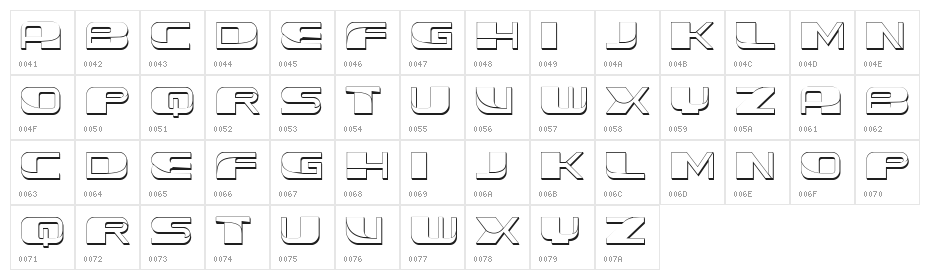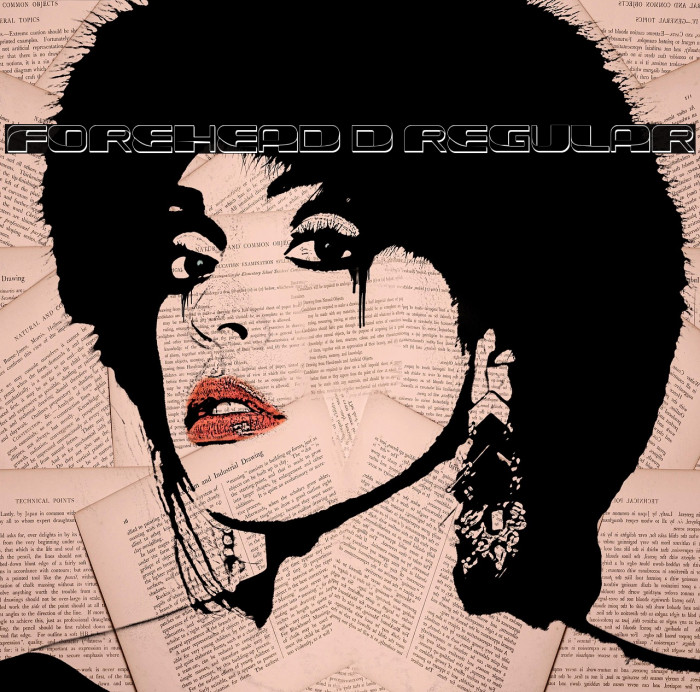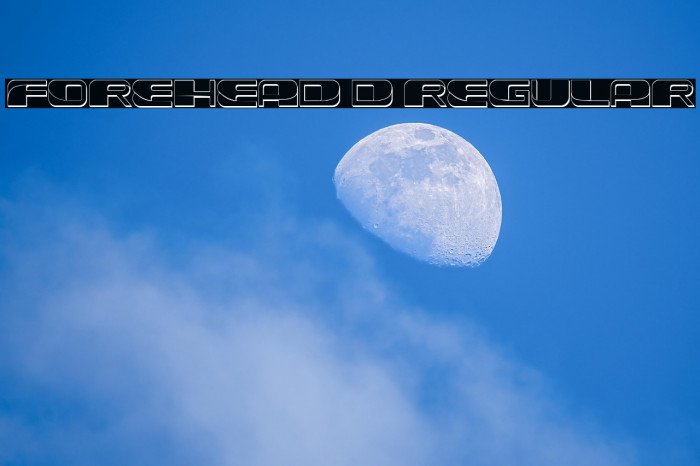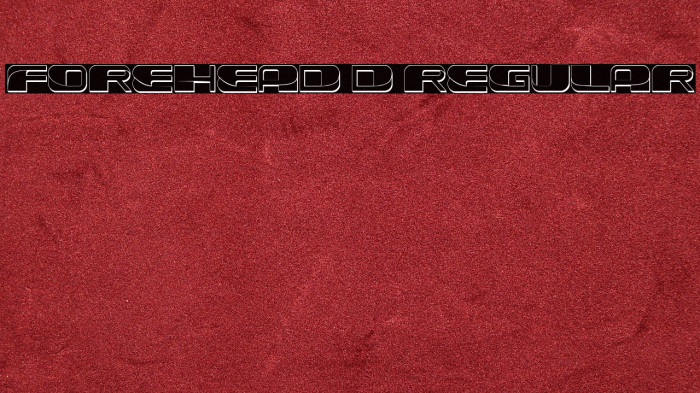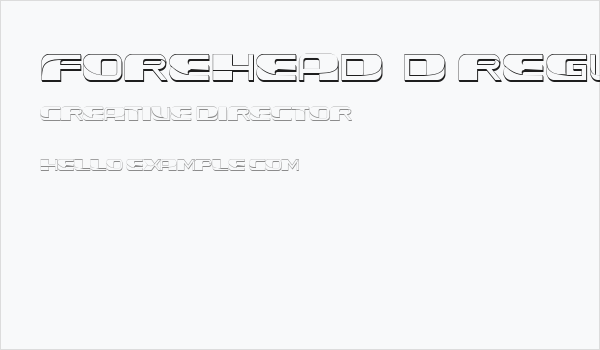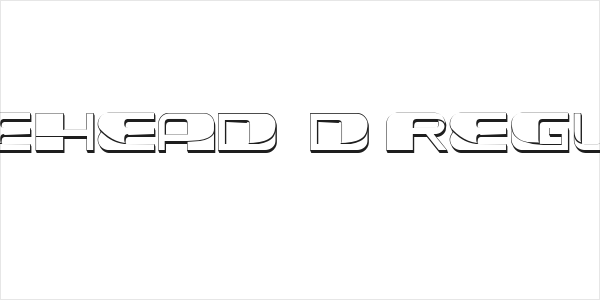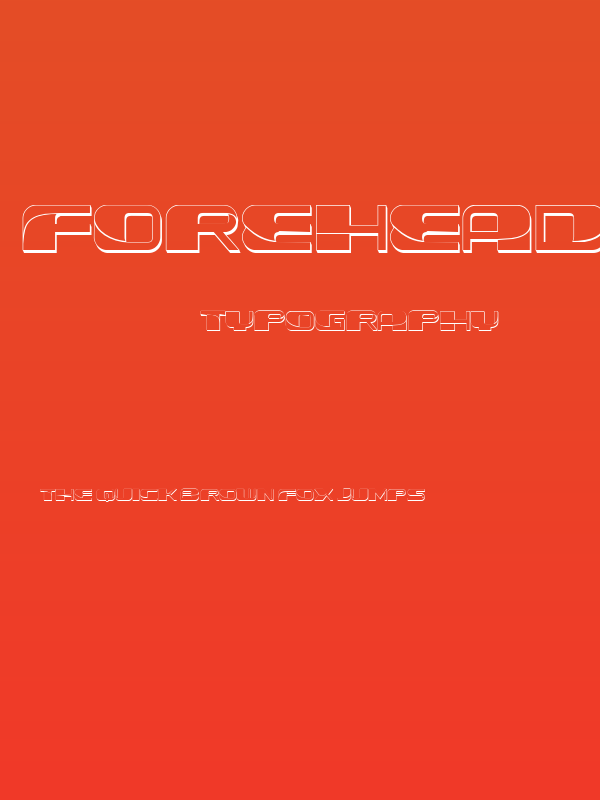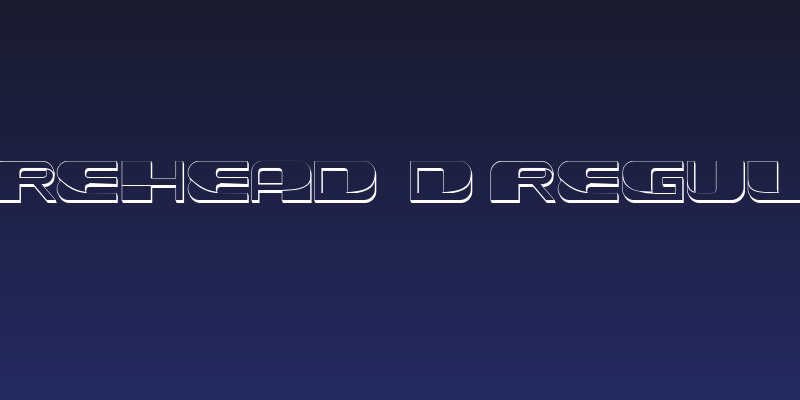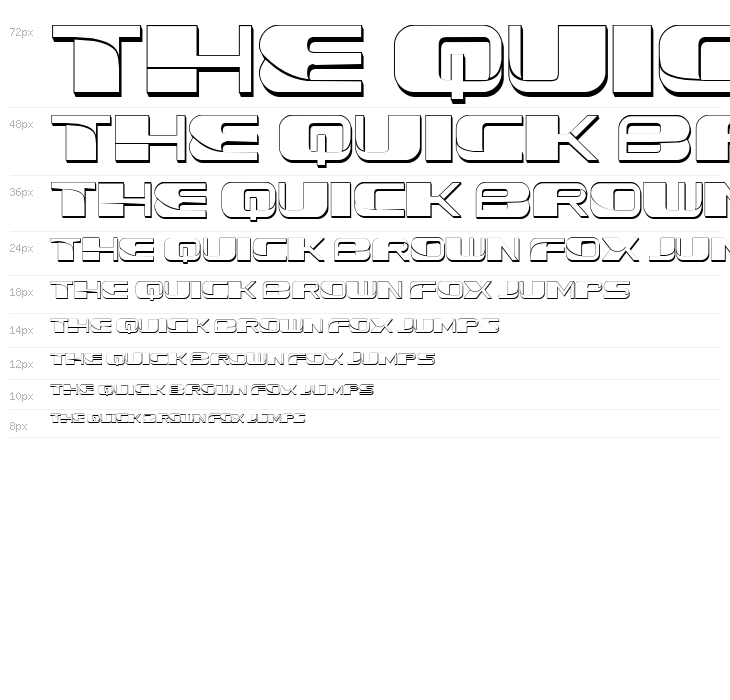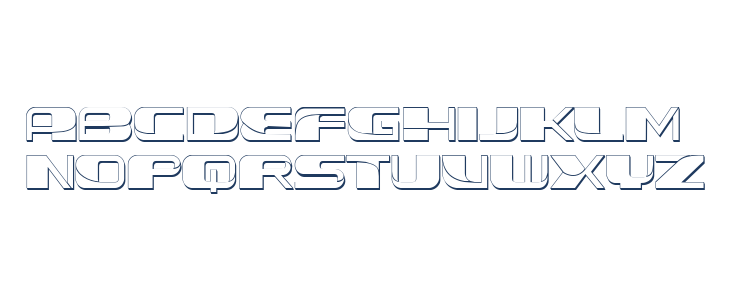
Forehead 3D Regular Font
Forehead 3D Regular Description
This font features a bold, three-dimensional design with a futuristic and geometric aesthetic. The characters are outlined with a distinct shadow effect, giving them a sense of depth and volume. The uppercase letters are uniform in height, with sharp angles and clean lines that create a modern and dynamic appearance. The font's structure is consistent, with each letter maintaining a balance between the solid and hollow spaces, enhancing readability while maintaining its unique style. The overall look is sleek and contemporary, making it suitable for projects that require a standout visual impact.
| Proposed Projects | Ideal for branding, posters, video game titles, and any project needing a modern, eye-catching typeface. |